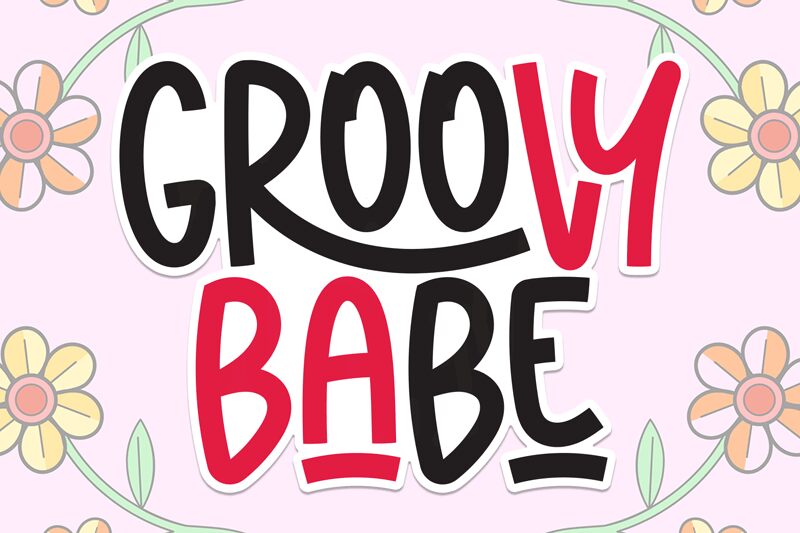
Groovy Babe
Groovy Babe font by Scratchones is a free display font that captures the carefree and sunny spirit of the retro era. This cartoon-styled typeface has condensed character widths and casual letter shapes for that ideal, hand-drawn look. The overall appearance is whimsical, easygoing, and fun to explore as it takes inspiration from the 1960s and 70s.
While Groovy Babe looks beautiful when used for logos of brands that target younger audiences, it also does perfectly well in projects related to cartoons, comic books/covers, food packaging (snacks/chocolates), book covers for teenagers, music album covers/band posters, photography magazines or blogs/online magazines.